Not all metal designs are born equal — and neither are metal fonts. Whether you’re working on a band logo, album cover, merch, or poster, the right font will amplify your artwork’s intensity and style. Here are 4 essential tips to help you choose the best font for your metal-themed design:
1. Decide: Complex or Simple?
The first step is to choose between a highly detailed font or something clean and easy to read.
If you want instant readability without losing the metal vibe, try Base Metal — a simple yet powerful font that still screams attitude.
But if you’re aiming for something more intricate, look for fonts with layered shapes or distressed edges.
2. Match the Font with Your Visual Theme
Every sub-style of metal has a matching visual flavor.
- Creating a gore-themed design? Use fonts that look like twisting roots or dripping blood.
- Designing for black metal? Choose fonts that are spiky, chaotic, or ceremonial.
👉 The font must blend into your artwork, not fight it.
3. Go Complex, But Still Readable
Some designs need that extra flair — complex shapes, wild ligatures, and sharp edges — without becoming unreadable.
A perfect example is Midnight Grave: an elegant, detailed metal font that still lets people read your band name. It’s dark, sharp, and unforgettable.
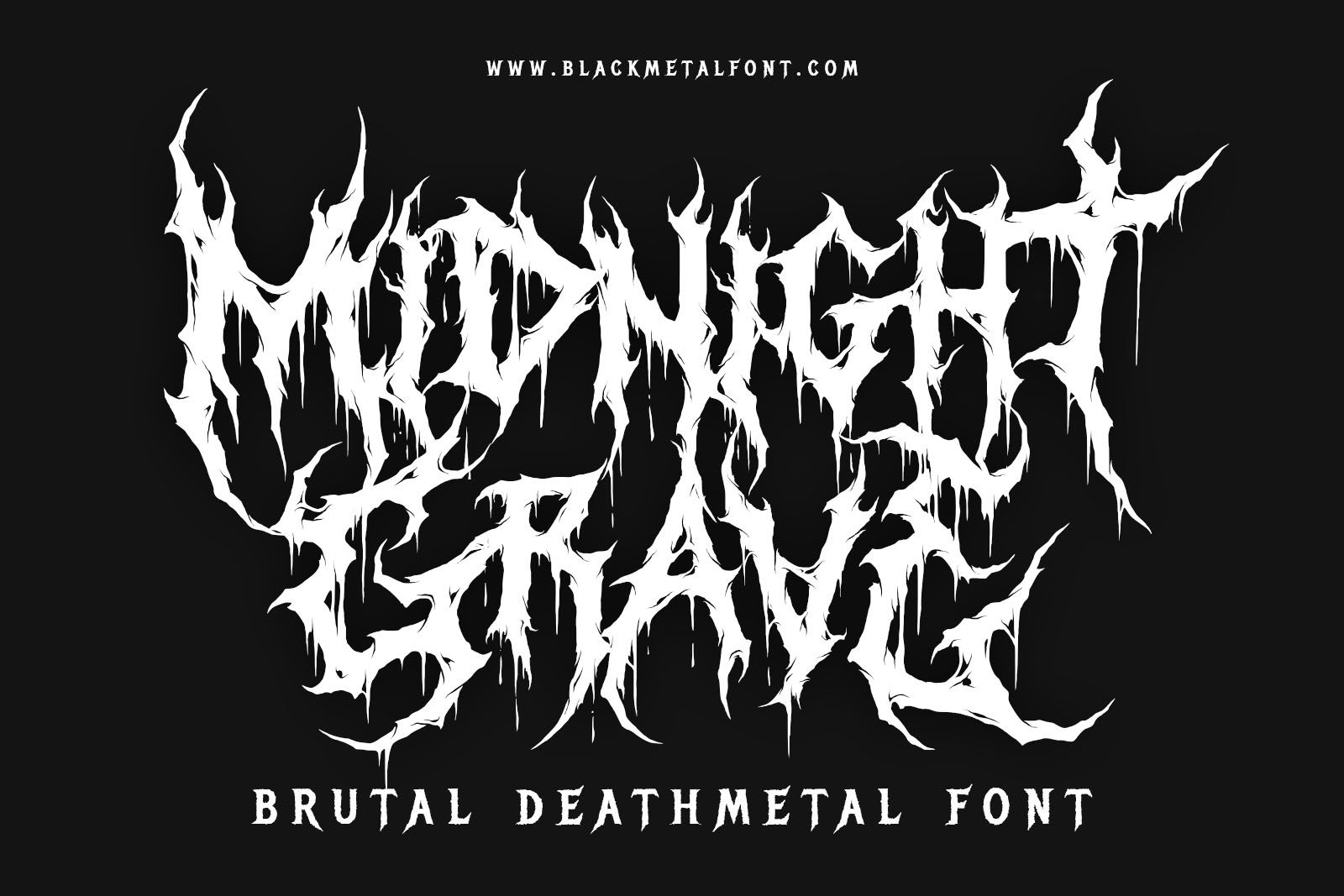
4. Strike the Perfect Balance
Don’t want something too clean or too extreme? Look for balanced fonts that offer edge and attitude with decent readability.
Take Heartless Font — one of the best-selling metal fonts out there, used by tens of thousands of designers and musicians. It captures the essence of metal without going overboard.
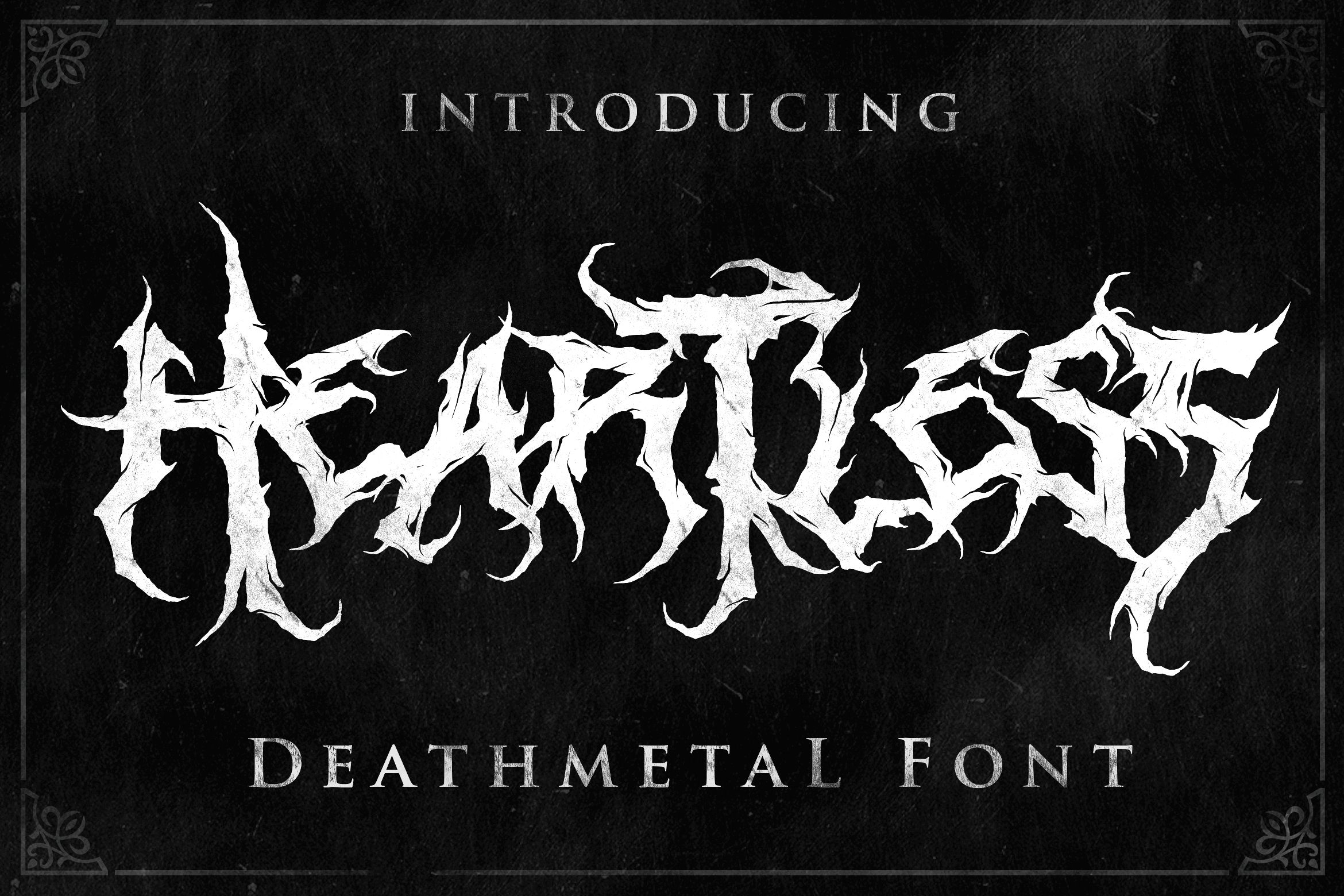
🩸 Final Words
Your font is more than a style — it’s a voice.
Choose one that speaks the language of your metal.